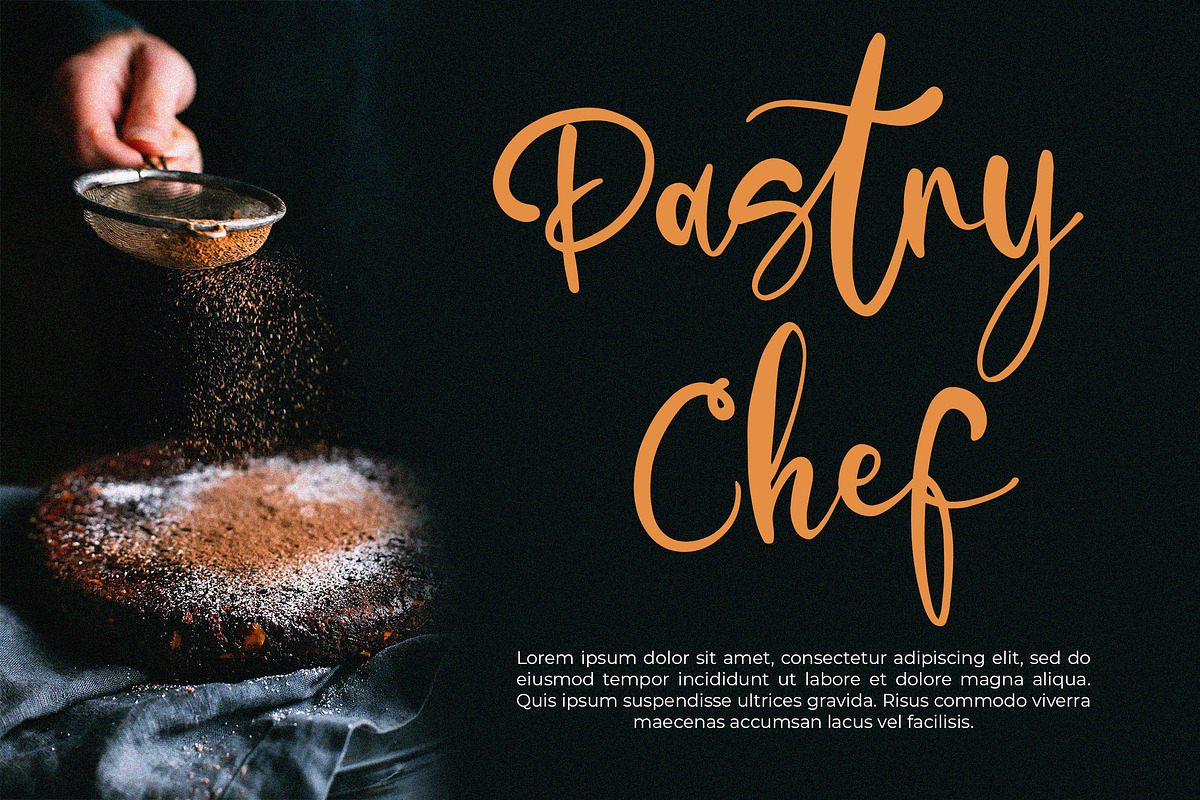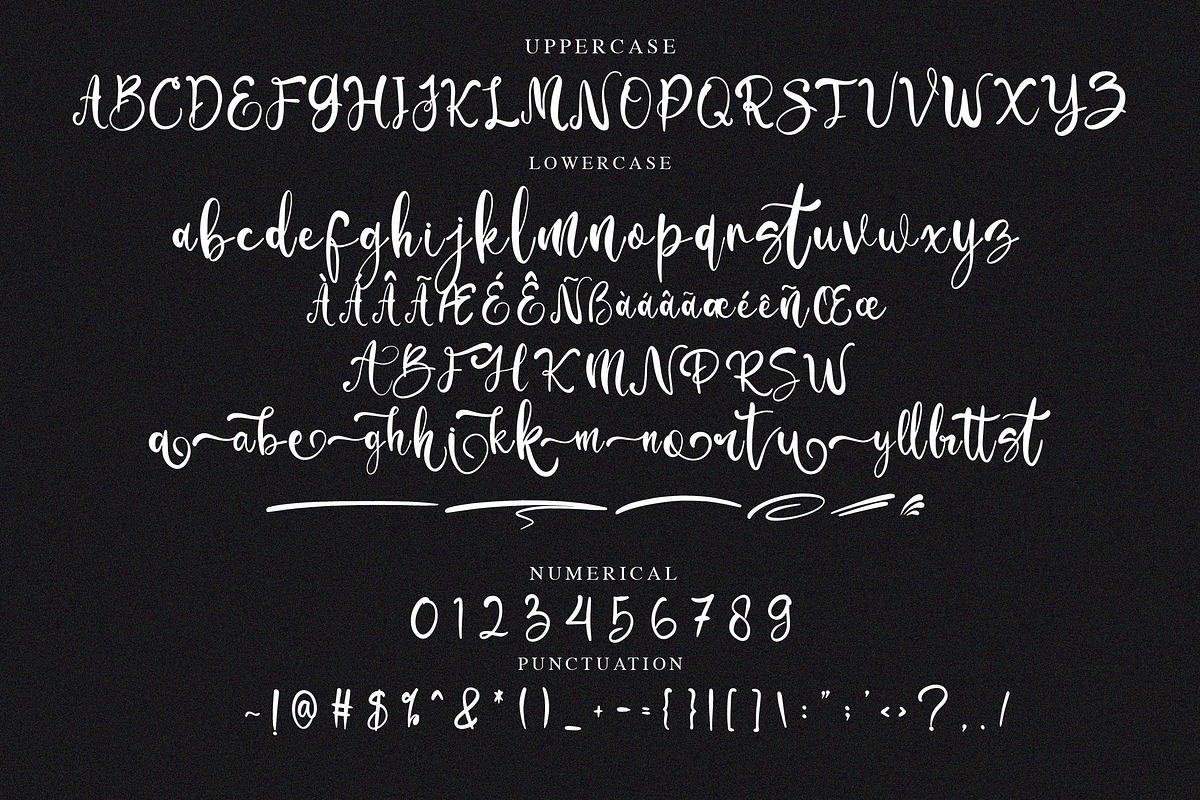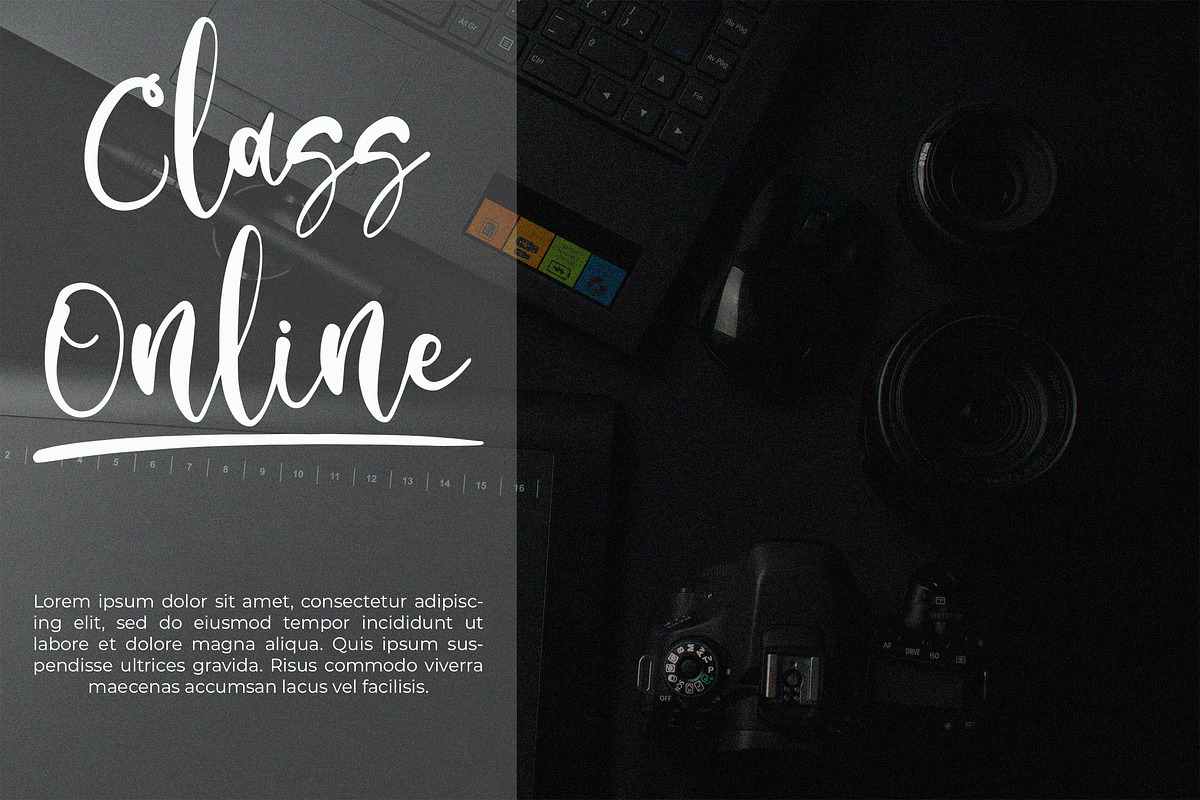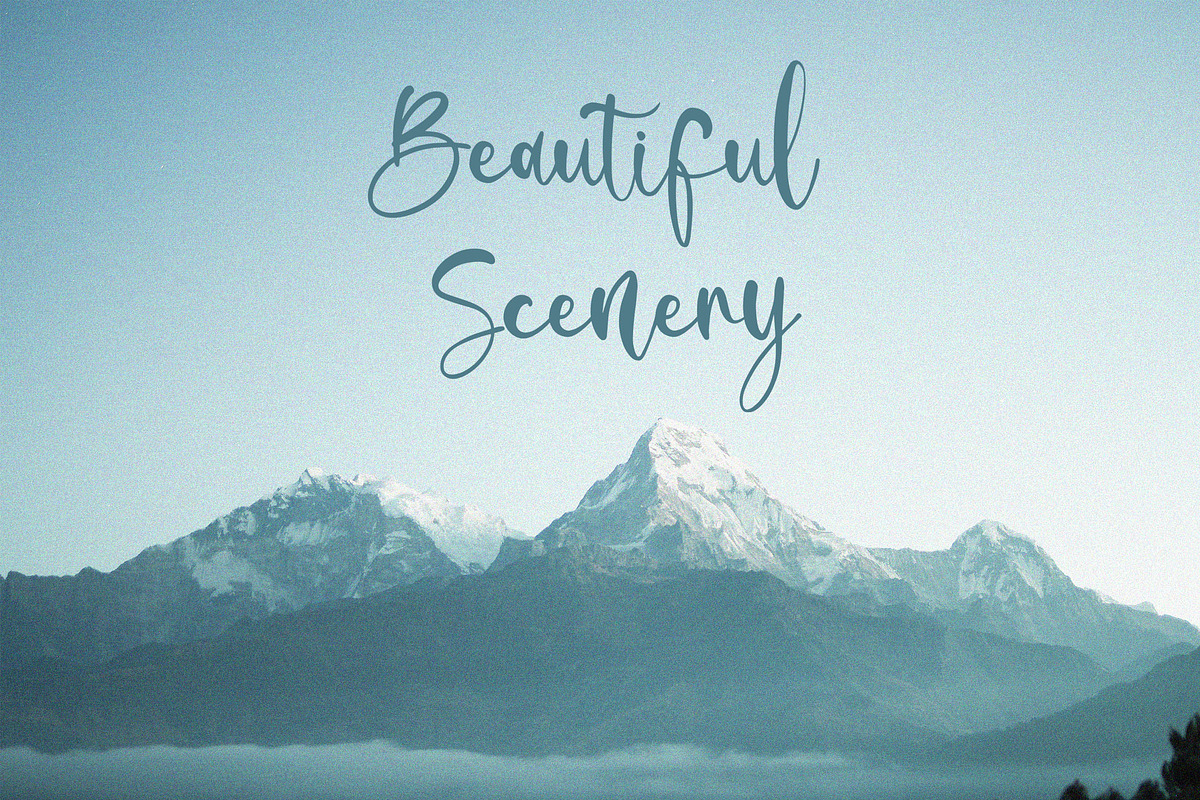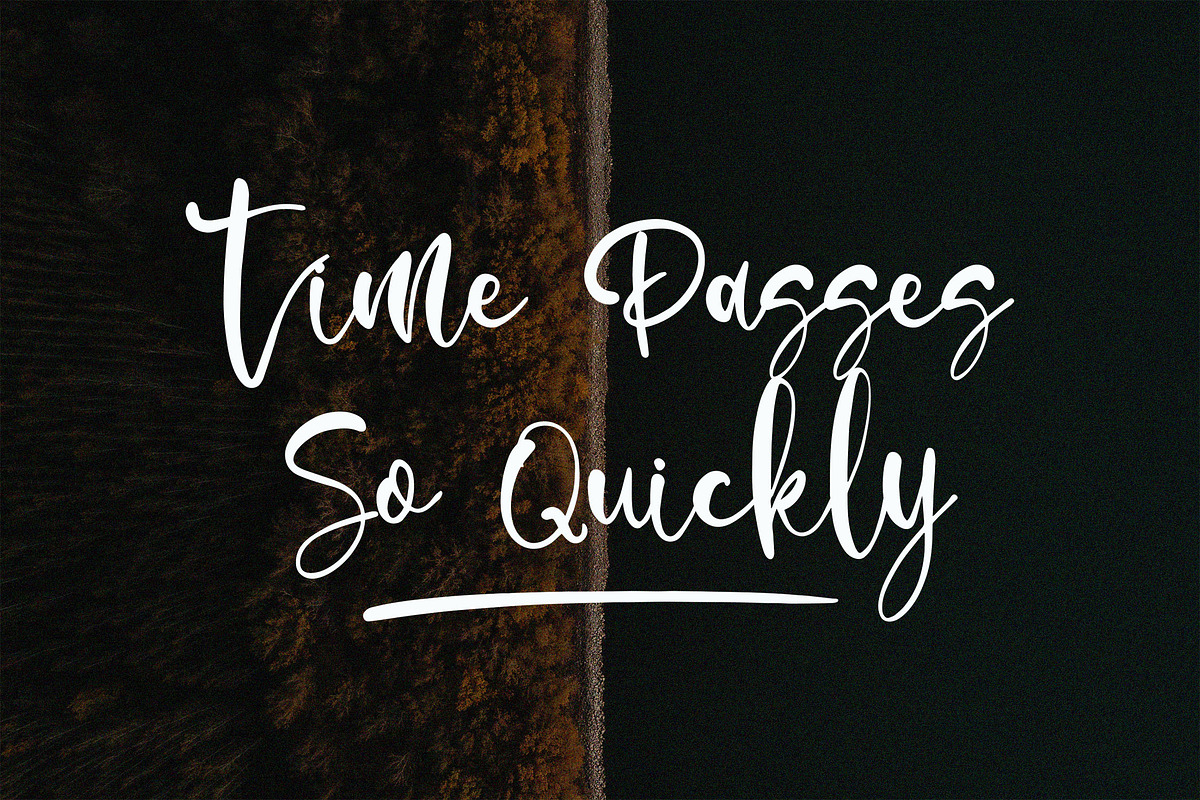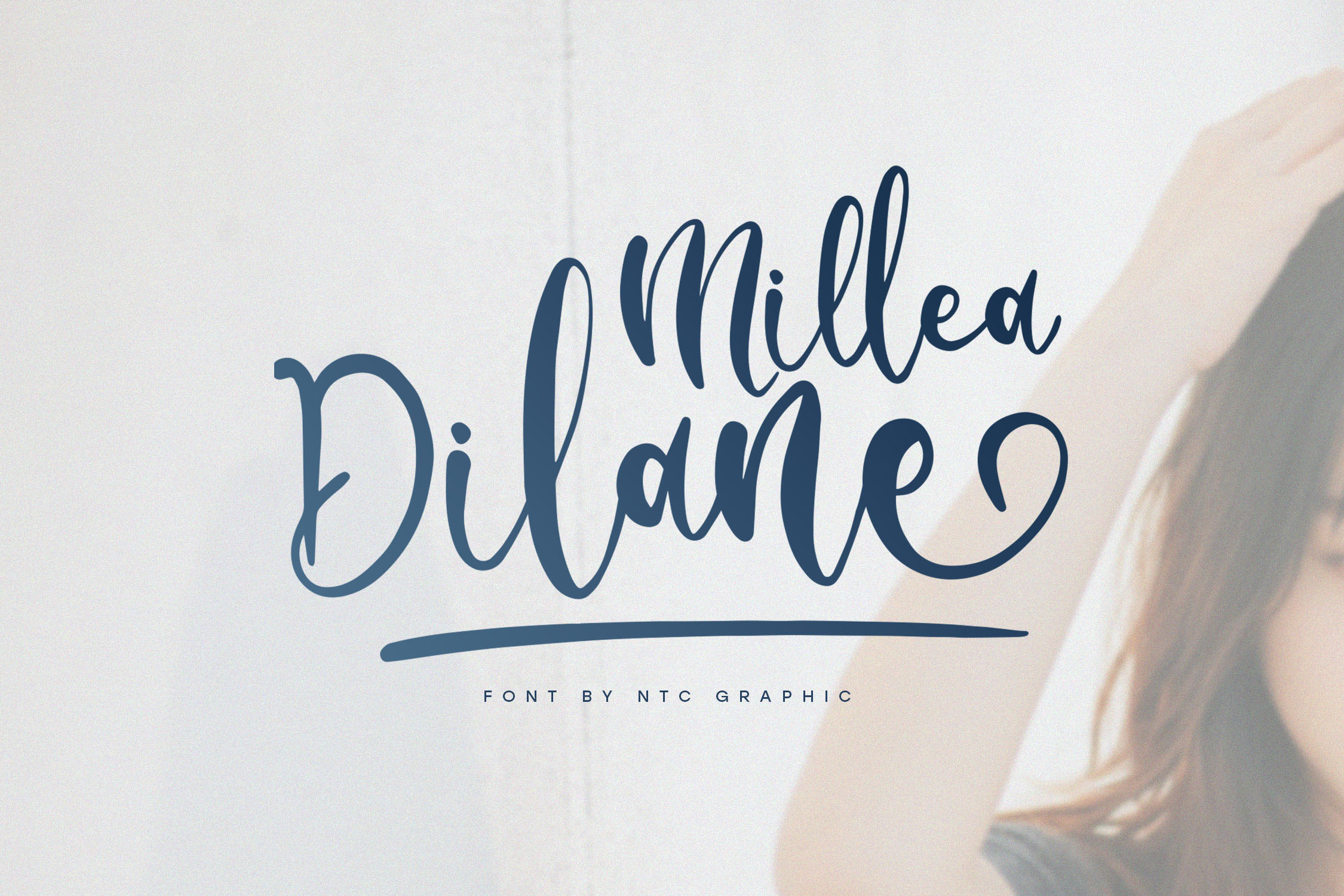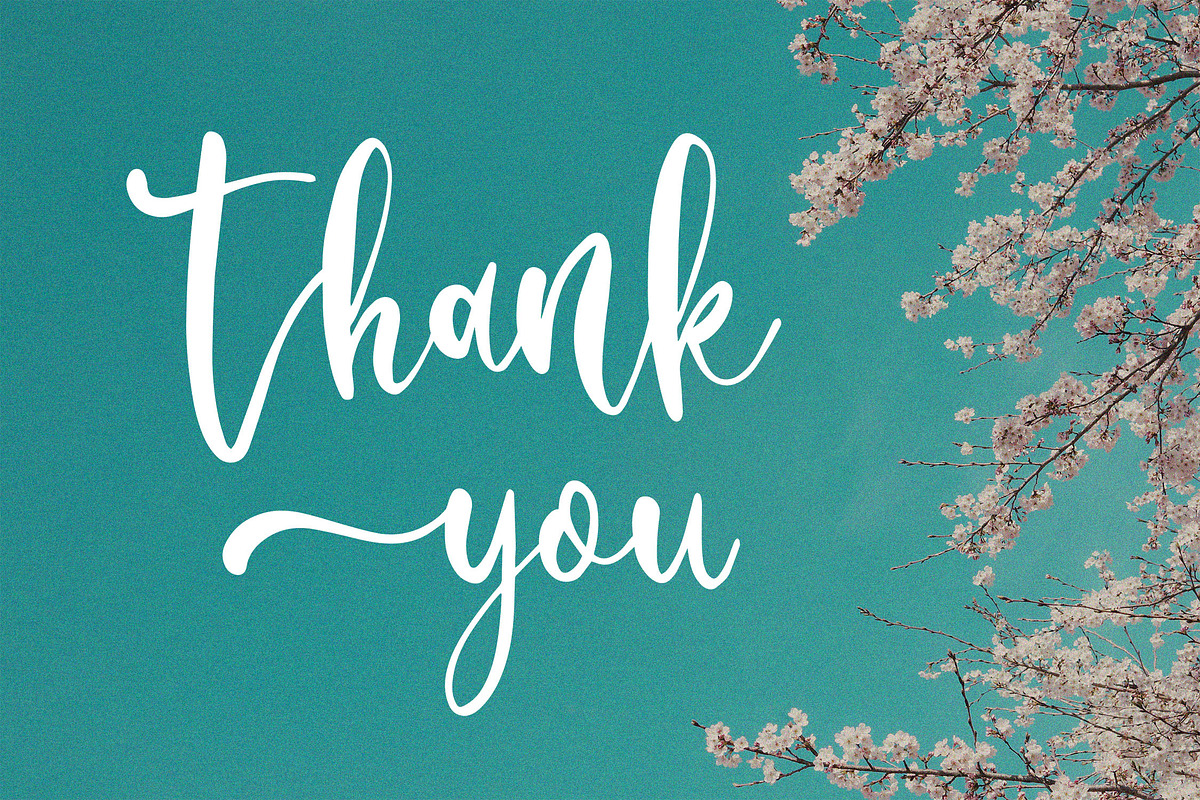
Millea Dilane Script Font
Millea Dilane is a beautiful script font with minimalist handwritten style. Is a font style that is made with scratches and curvature shapes font characters are very beautiful. Can be applied to support the graphic appearance of the product to be more attractive and unique.
- Stylistic Alternate